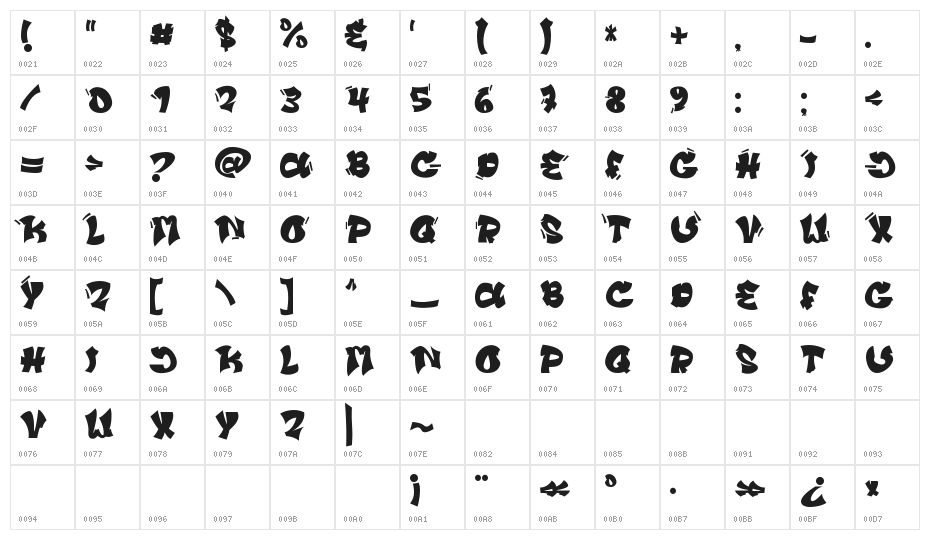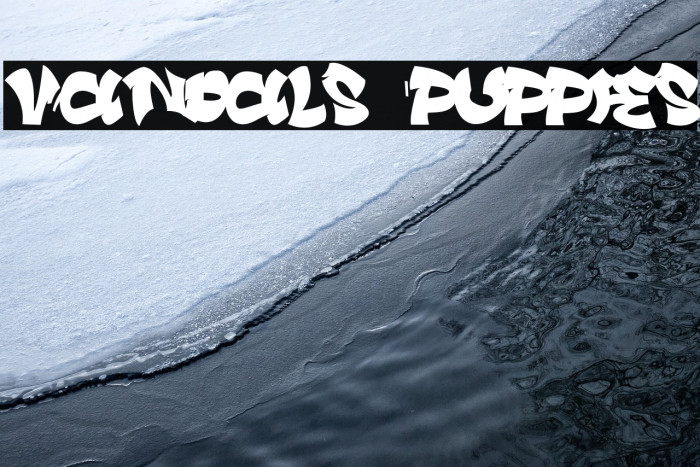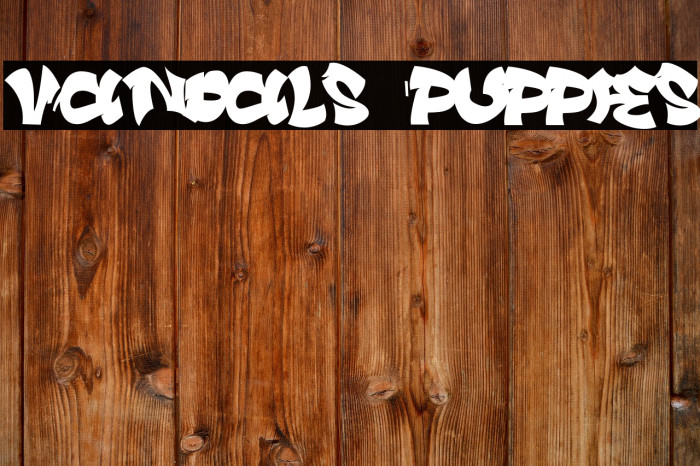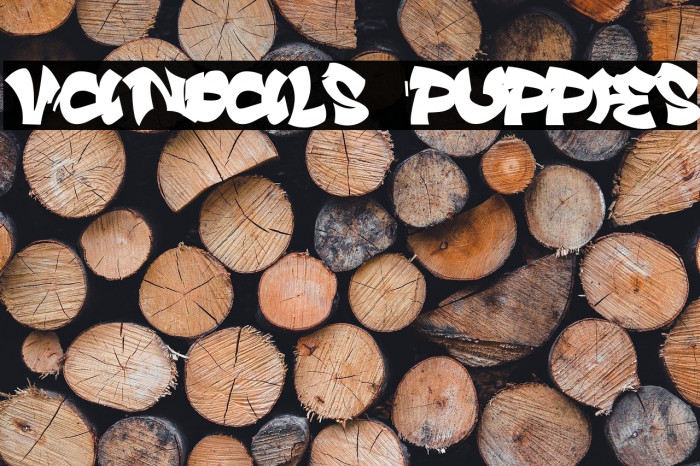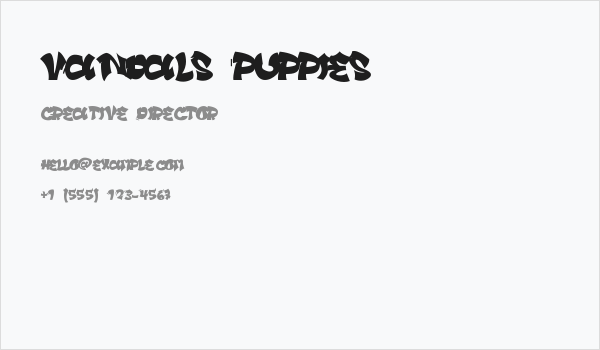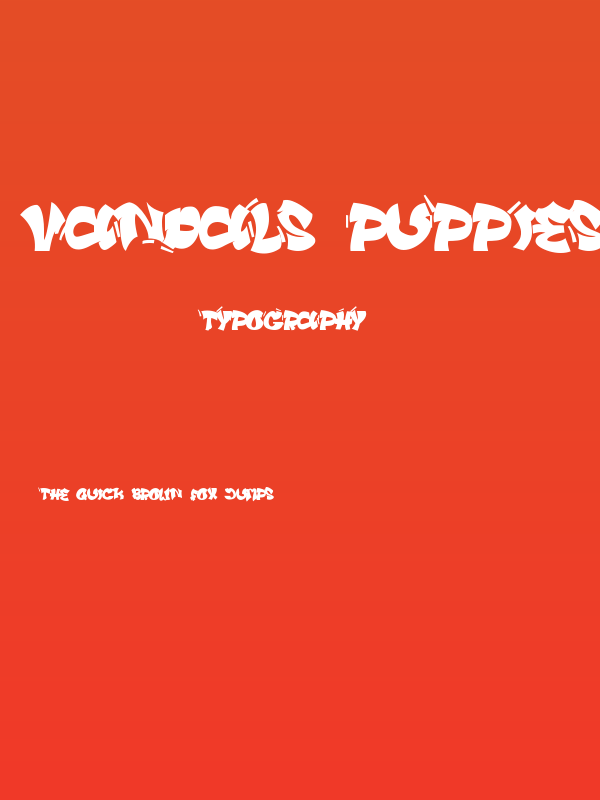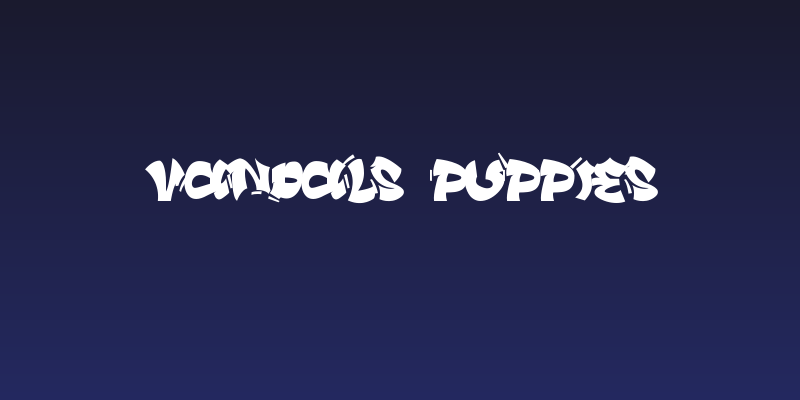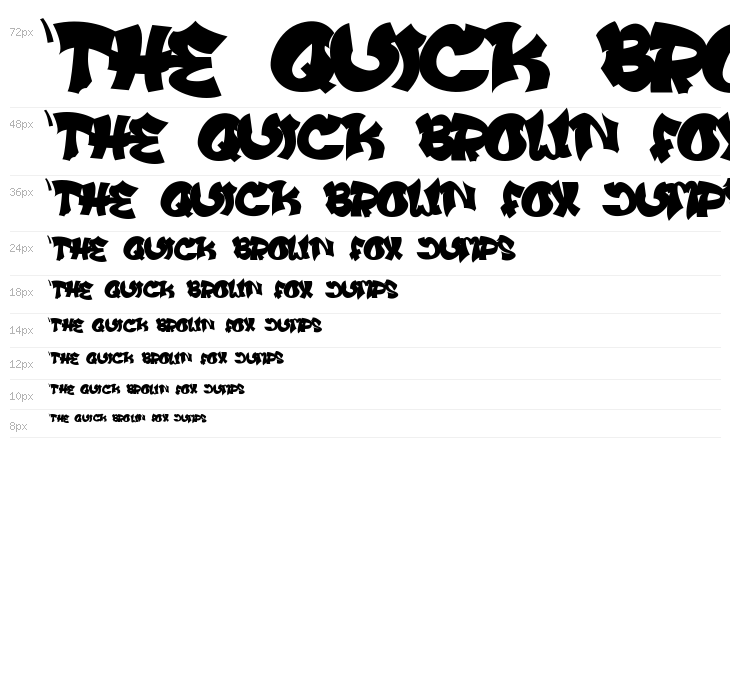
Vandals Puppies Font
Vandals Puppies Description
This font exhibits a bold and dynamic graffiti-inspired style, characterized by its sharp angles and exaggerated curves. The letters are designed with a sense of movement and energy, often featuring pointed edges and overlapping strokes that create a sense of depth and texture. The uppercase and lowercase letters maintain a consistent style, while the numbers and special characters integrate seamlessly with the overall design. This font's unique aesthetic makes it stand out, capturing attention with its street-art vibe.
| Overall Style | Modern, Urban |
| Proposed Projects | Ideal for urban-themed designs, streetwear branding, music album covers, and event posters. |